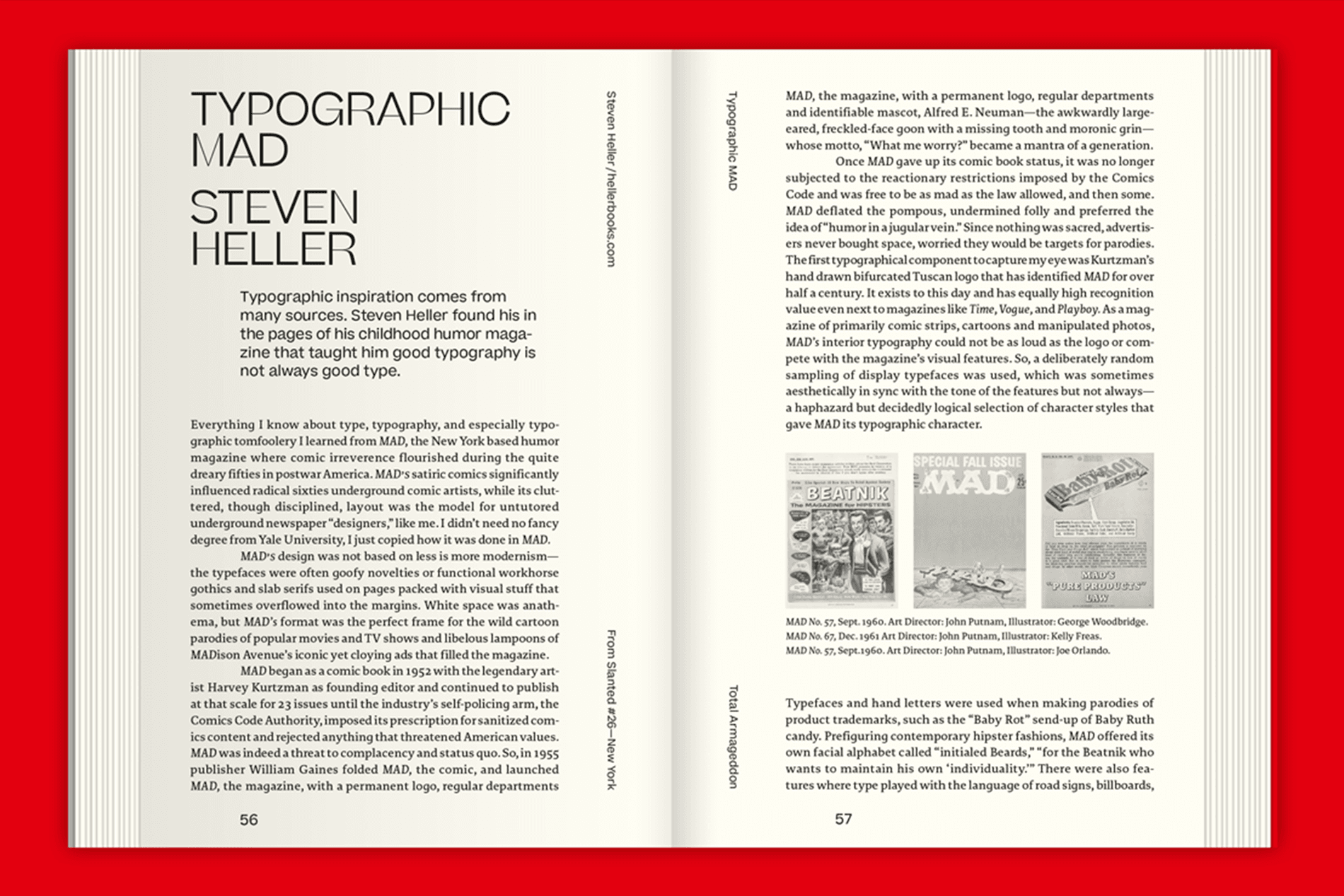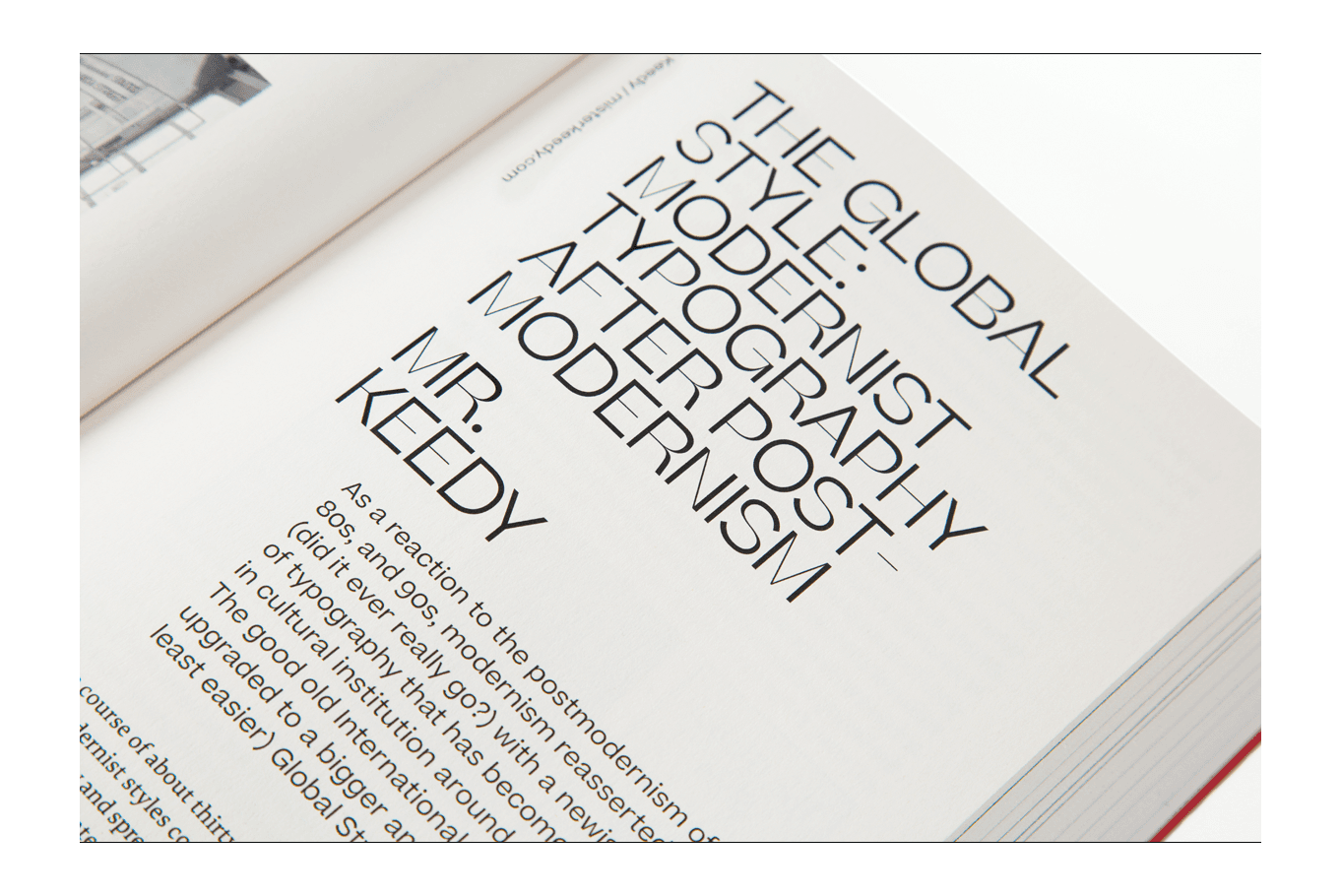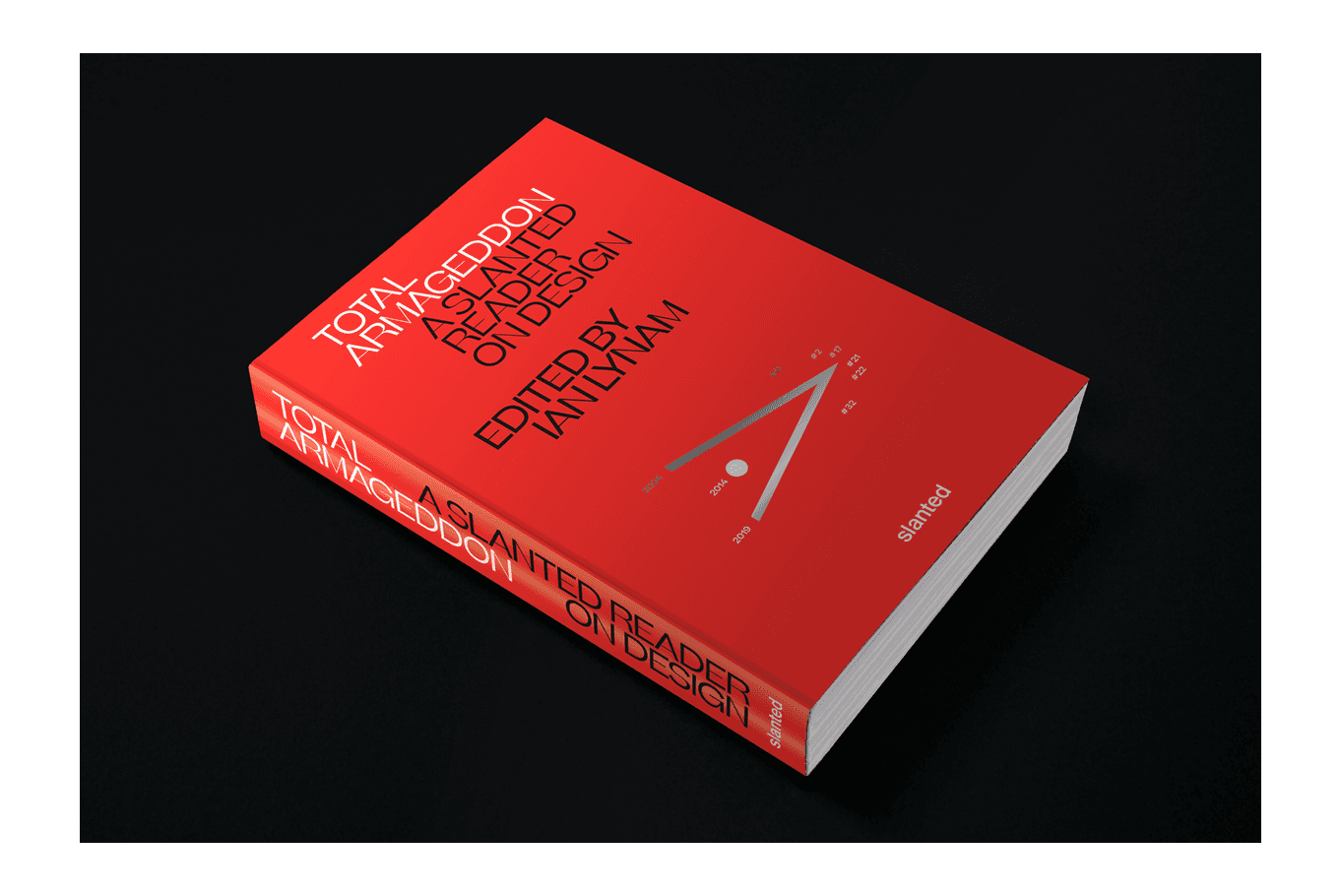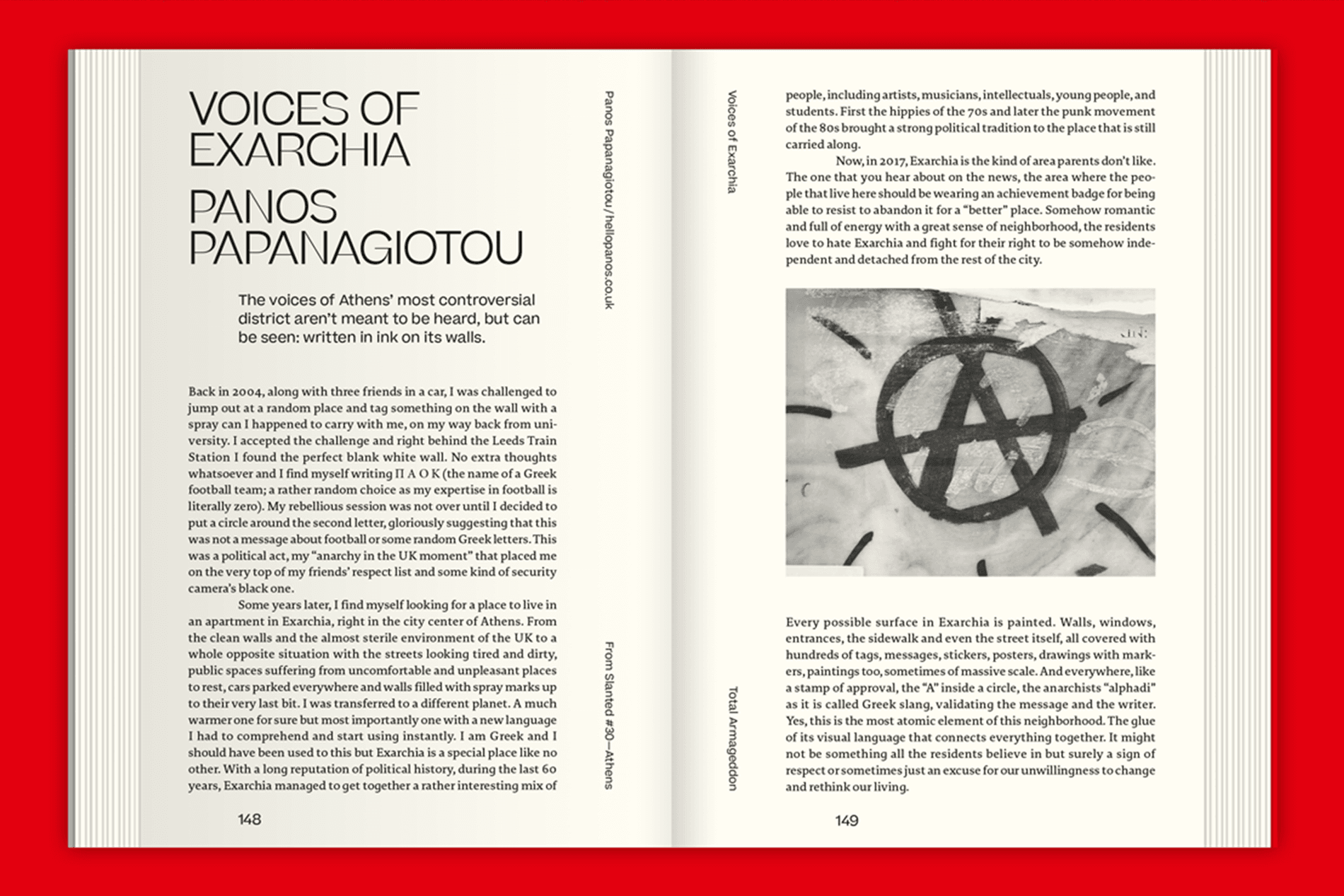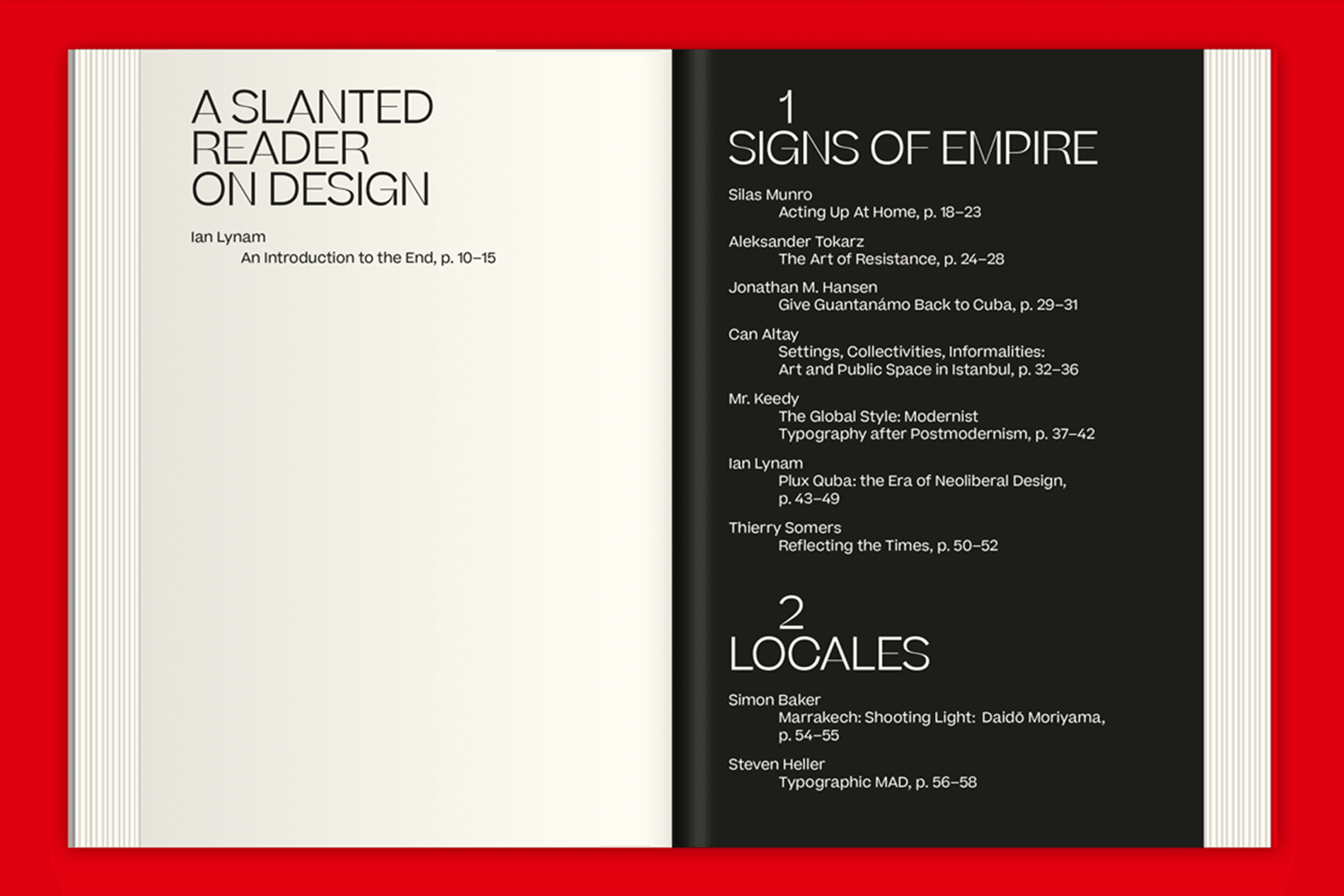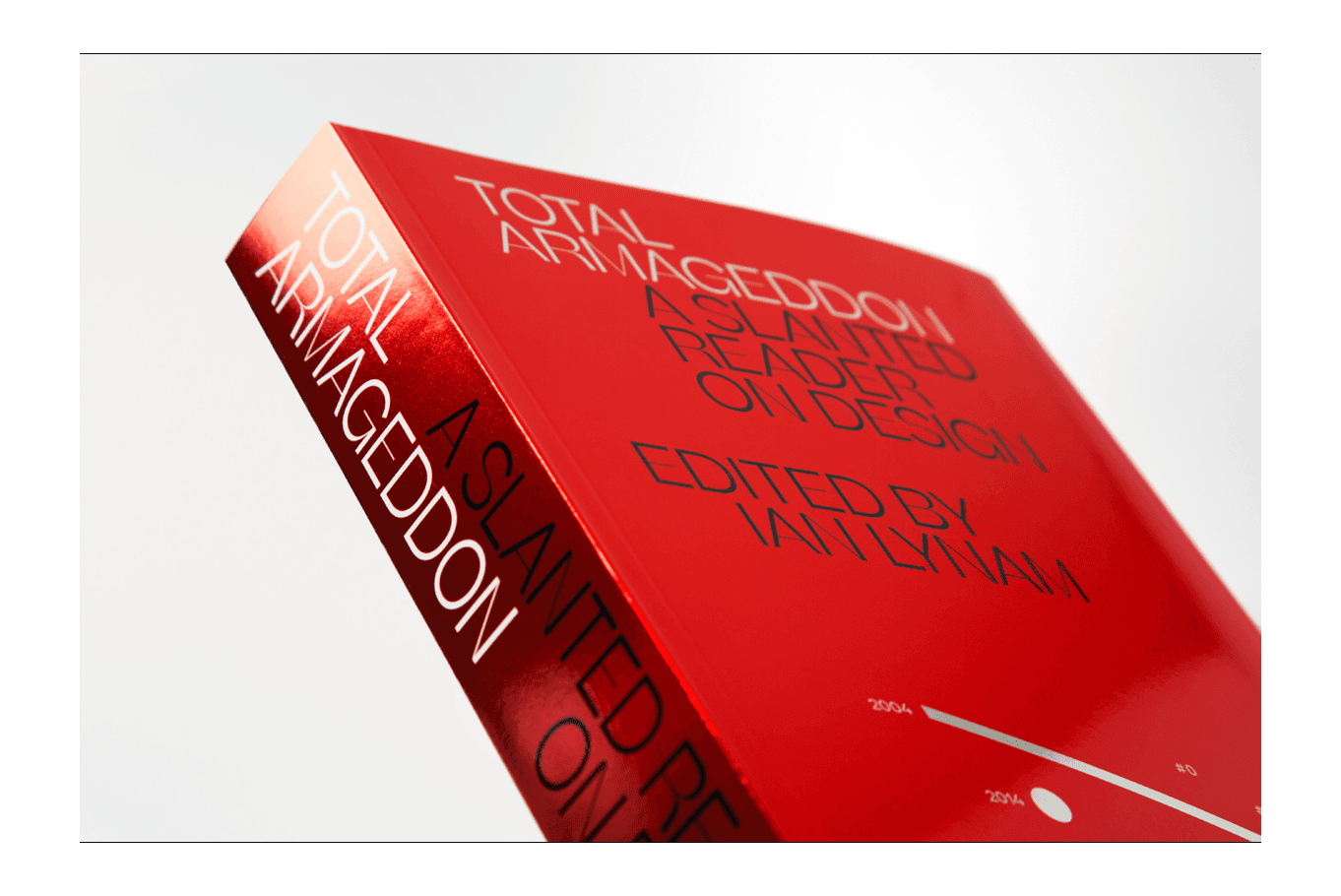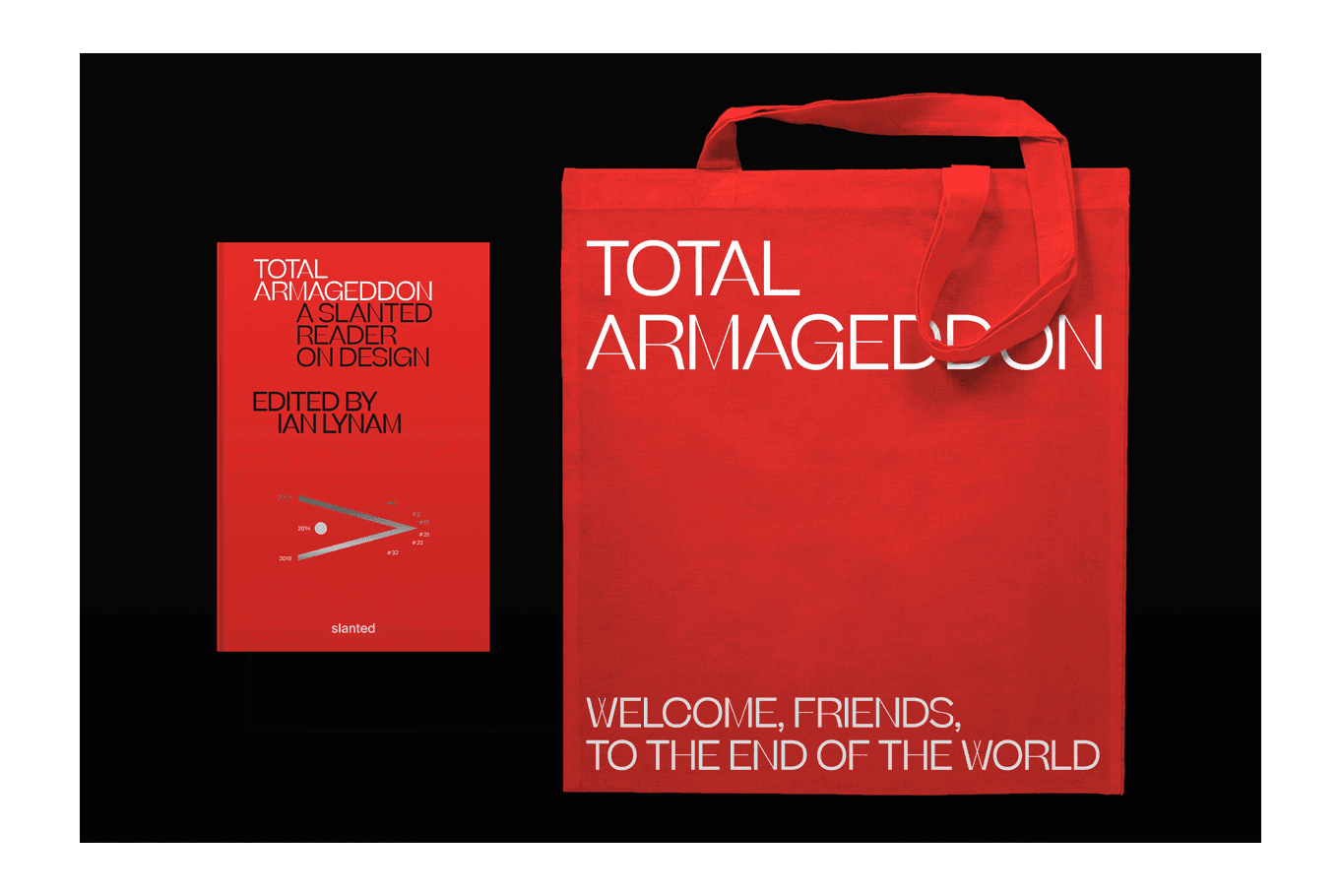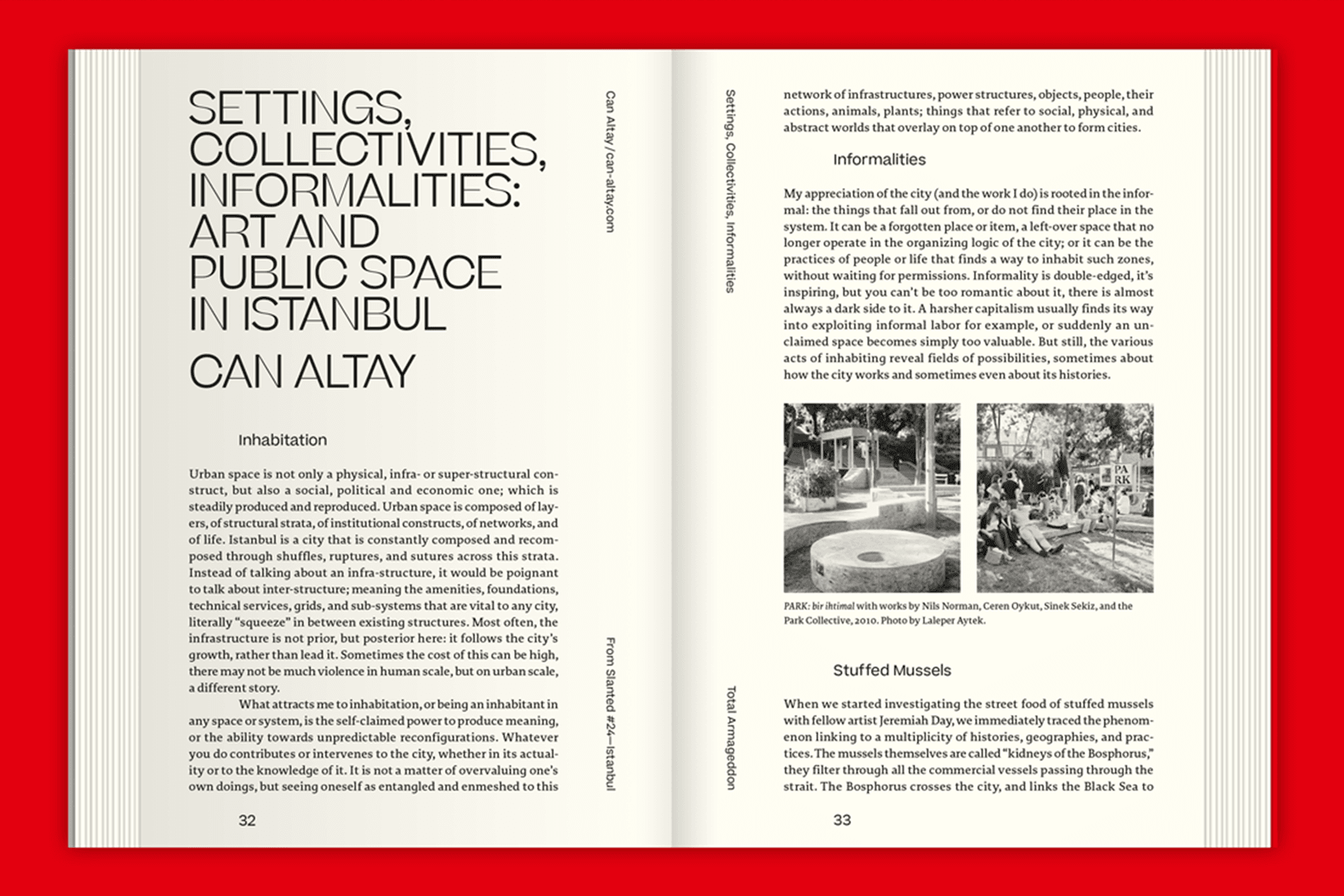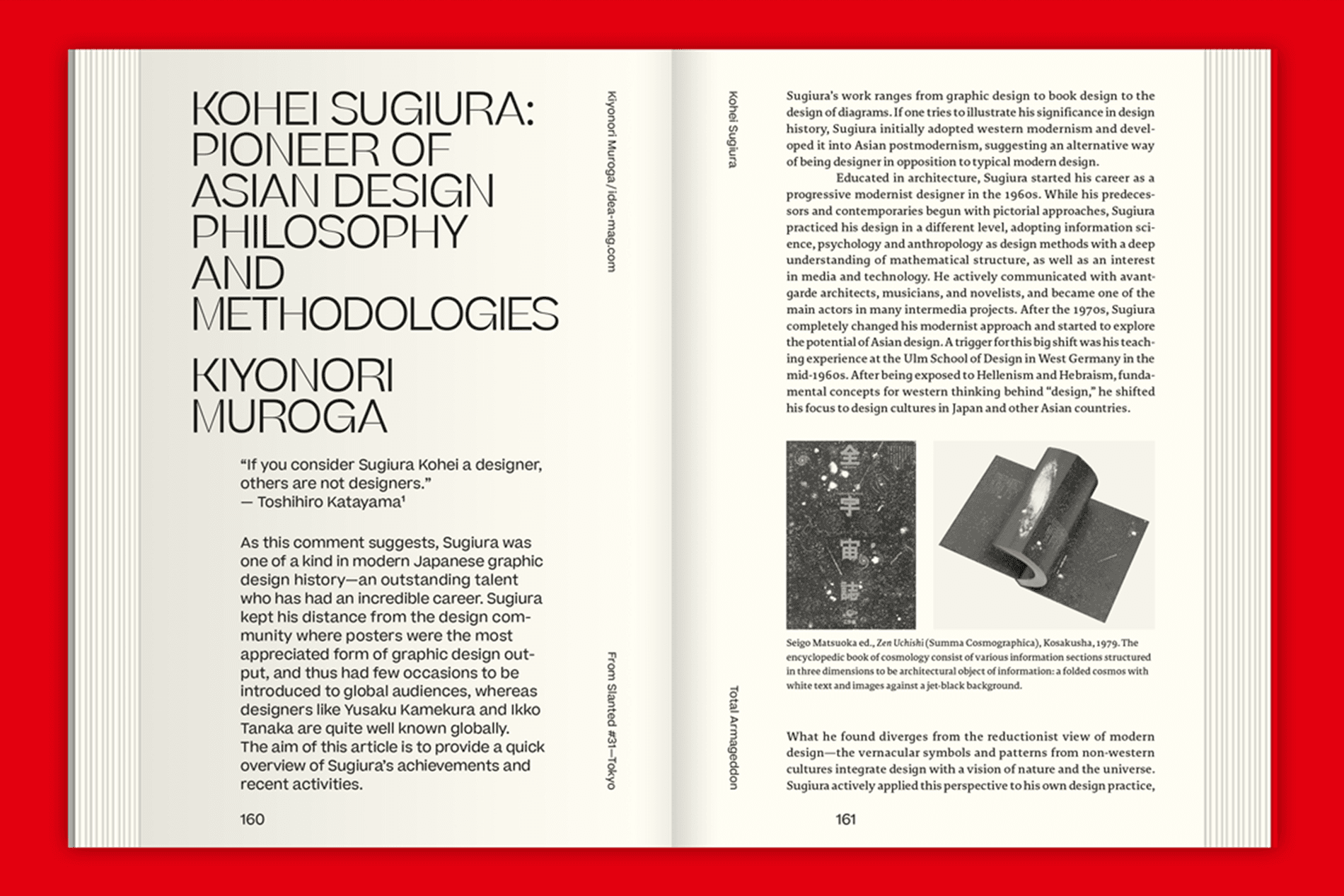
Slanted Publishers is an international publishing and media house that covers typography, contemporary art, and design. In 2019, we backed TOTAL ARMAGEDDON — A Slanted Reader on Design on Kickstarter, a stellar example of Beatrice Display & Beatrice in use. Beatrice Display’s unique internal high-contrast model emphasizes the book's sleek design, which uses red, black, white colors with metallic finishes.
The book celebrates 15 years of independent publishing, featuring brand new essays as well as selections from the first 32 issues of Slanted including renowned contributors Steven Heller, Piotr Rypson, Gerry Leonidas, Yoon Soo Lee, Kiyonori Muroga, and more who are writing about design and culture.
Typeface: Beatrice Display & Beatrice